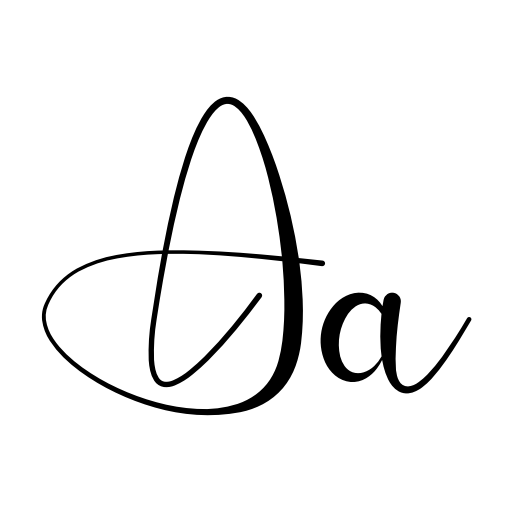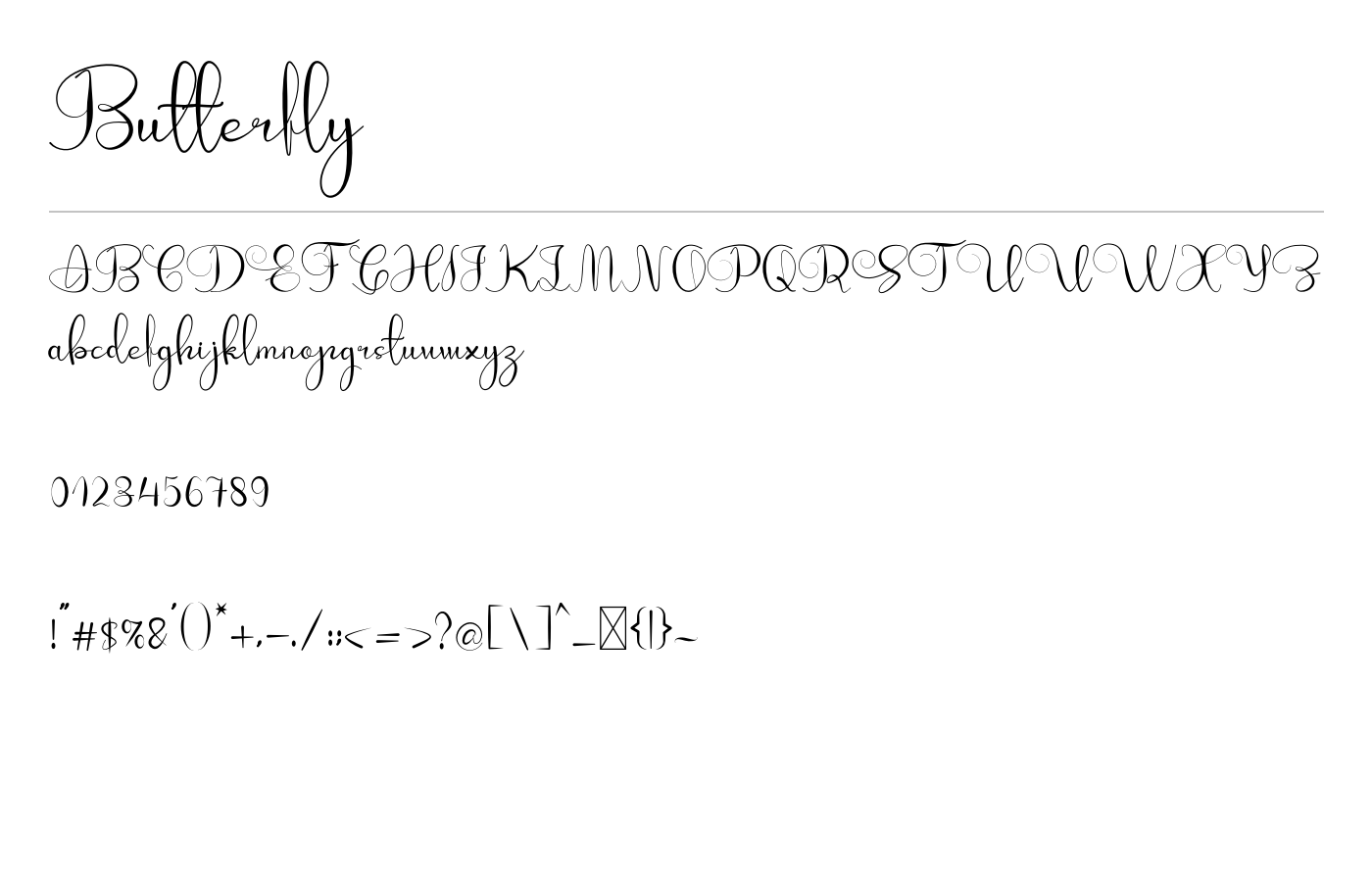
Butterfly Font is a delicate and elegant script typeface characterized by its fine, flowing lines and intricate swirls, especially in the uppercase letters. Its light weight and graceful curves create a whimsical, romantic feel, making it perfect for invitations, fashion branding, and other designs that need a touch of sophistication and charm. This font works best in decorative headlines and logos where its ornamental style can truly shine.
Butterfly Font
About Butterfly Font
| Font family | Butterfly Font |
| Designer | designvector10 |